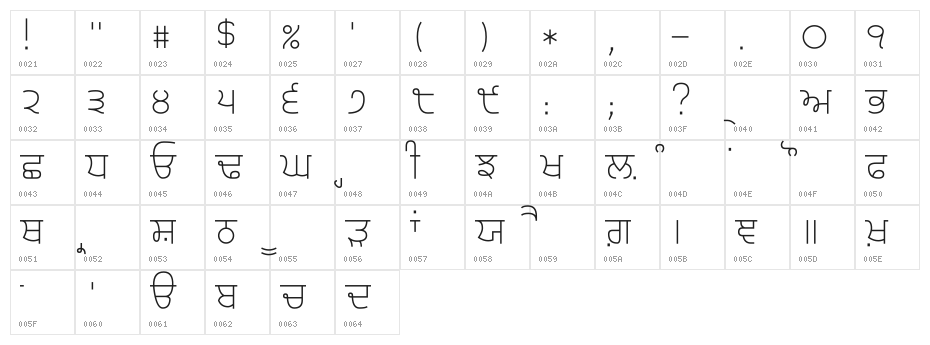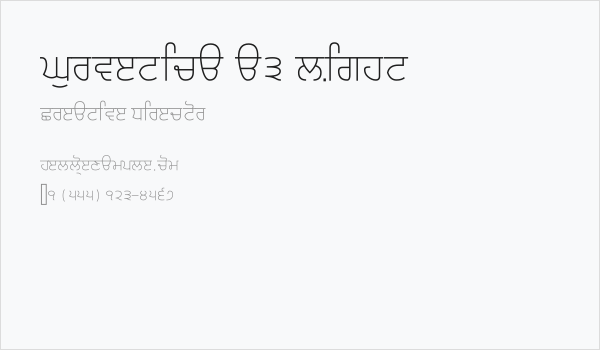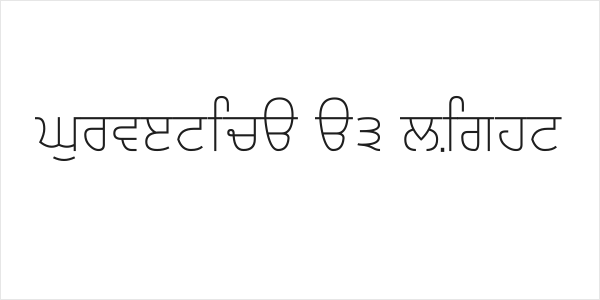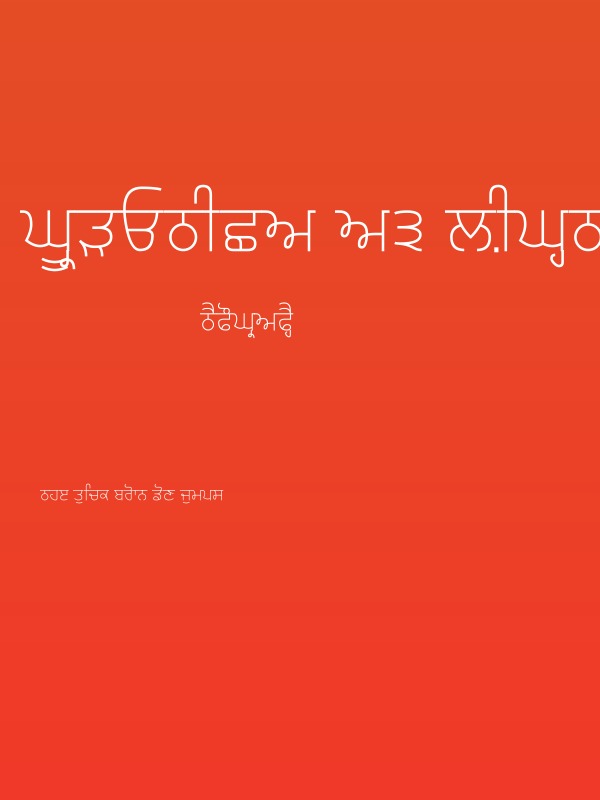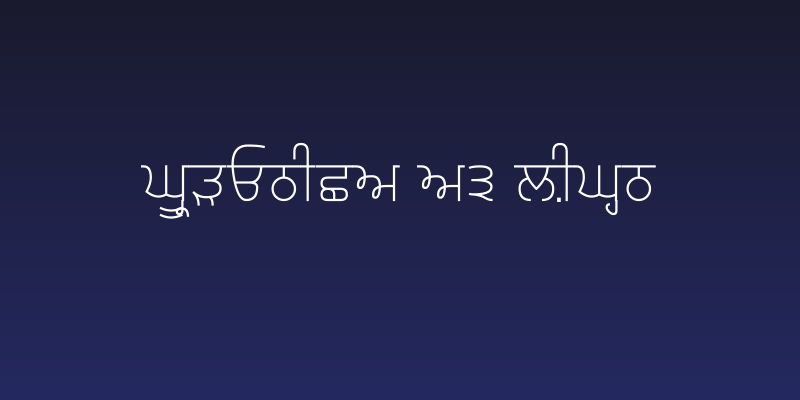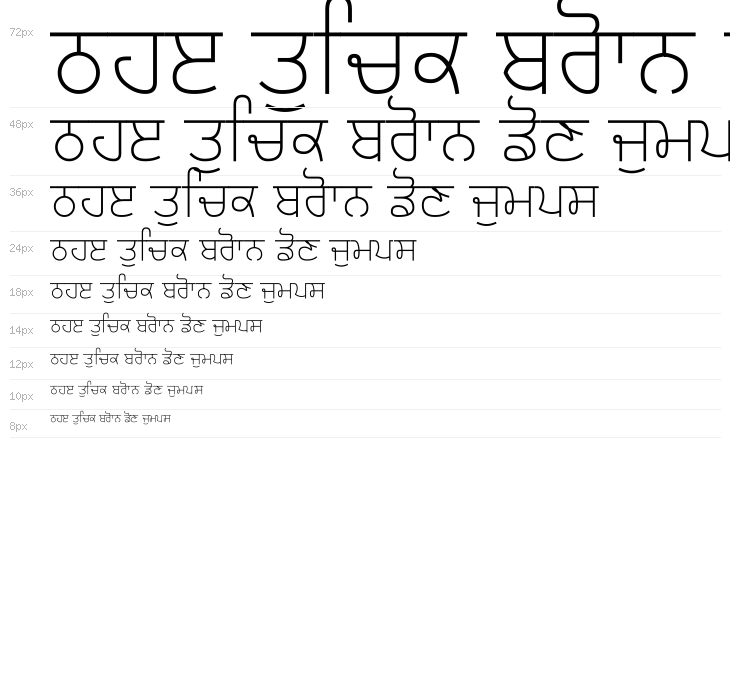
Gurvetica a3 Light Font
Gurvetica a3 Light Description
This font features a clean and modern design with a geometric structure. The characters are crafted with a uniform stroke width, providing a balanced and harmonious appearance. The rounded edges and open counters enhance readability, making it suitable for various applications. The numerals and special characters maintain the same geometric style, ensuring consistency across all elements. The overall look is sleek and professional, ideal for contemporary design projects.
| Proposed Projects | Ideal for branding, digital interfaces, and editorial design due to its clean and modern aesthetic. |